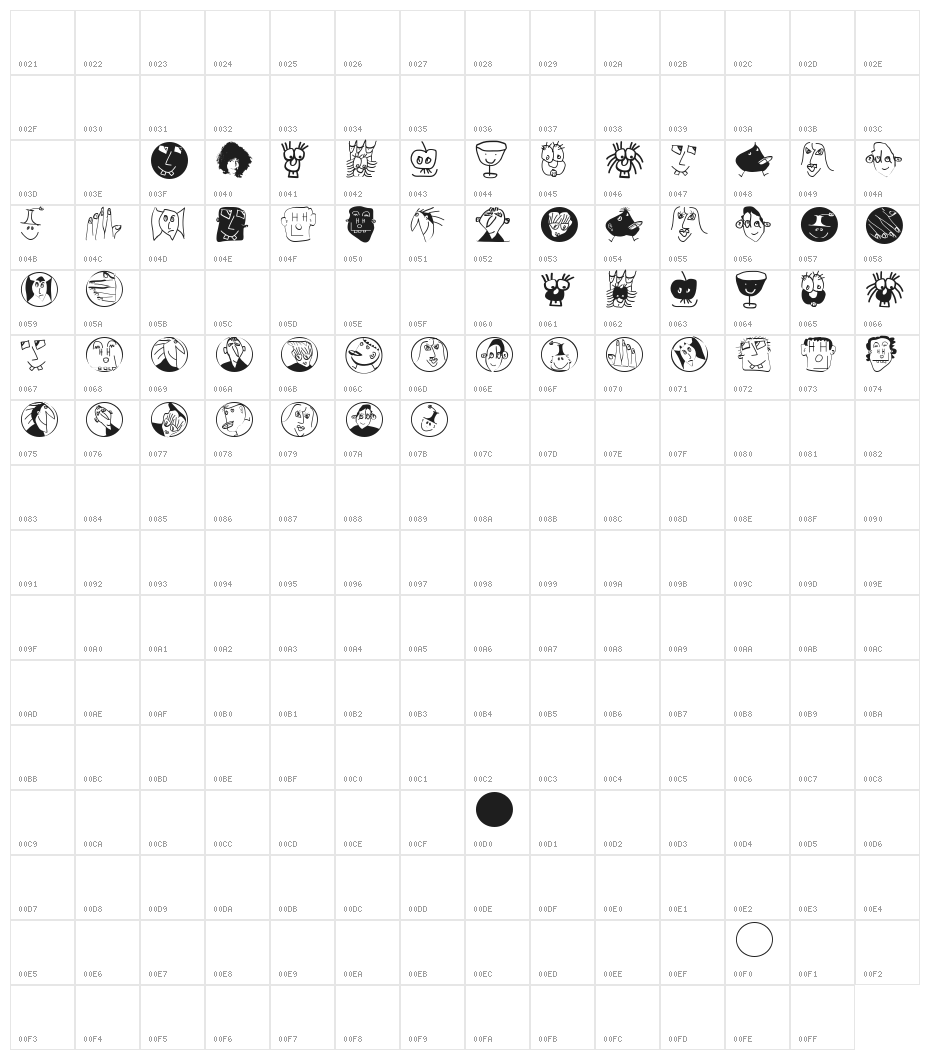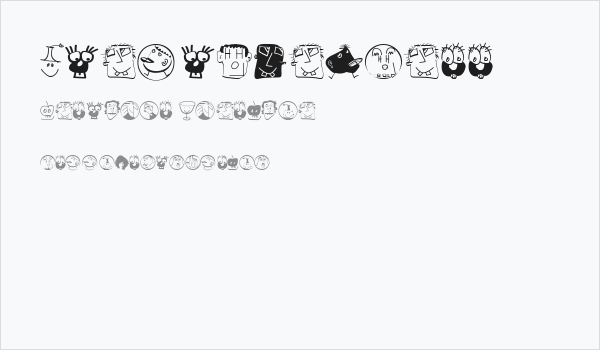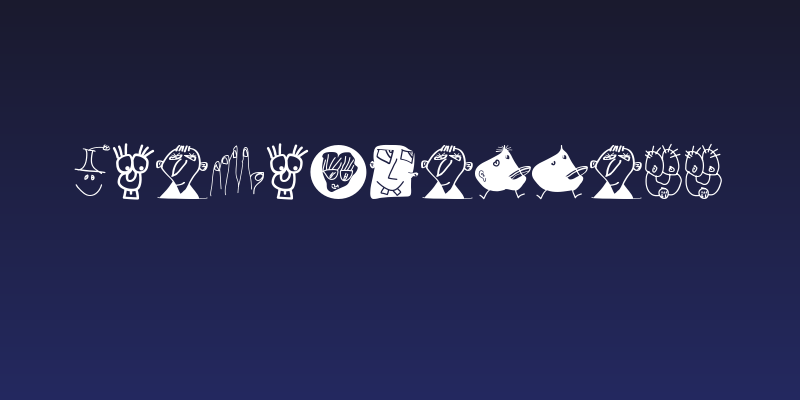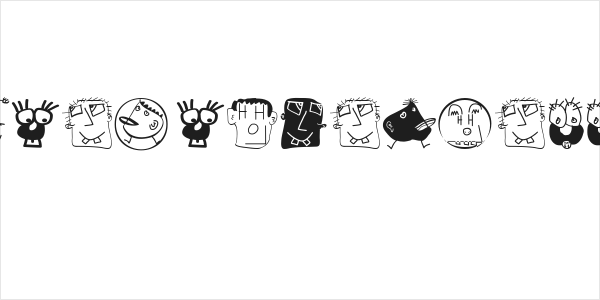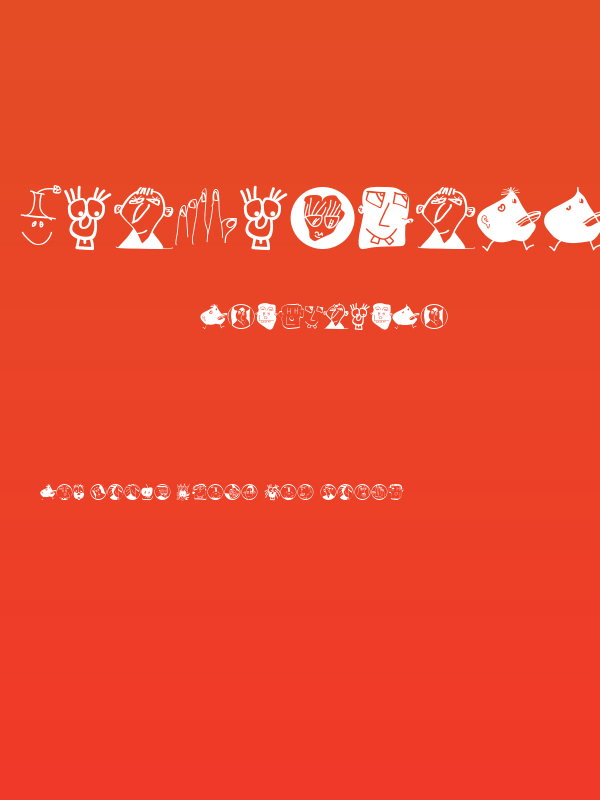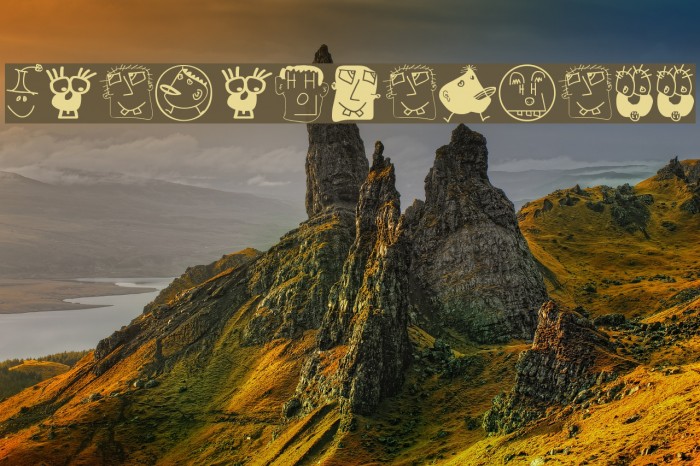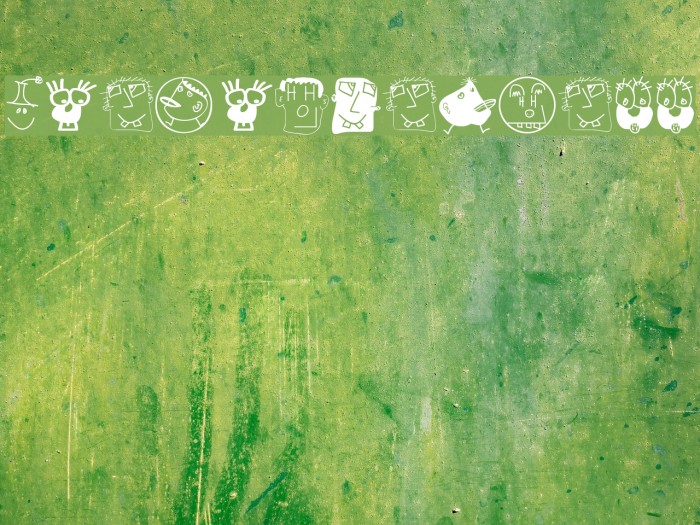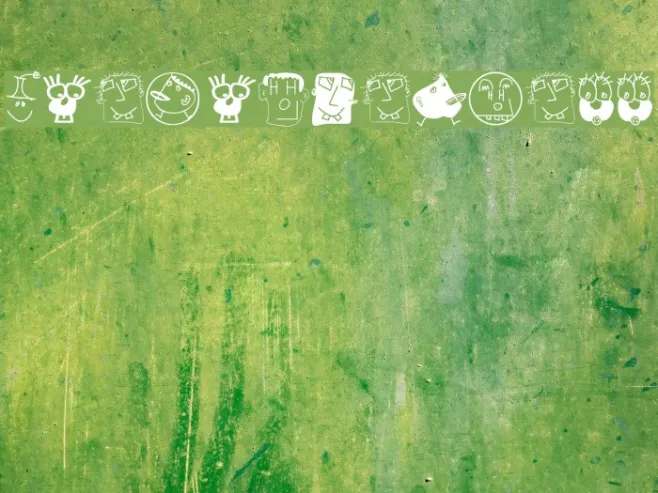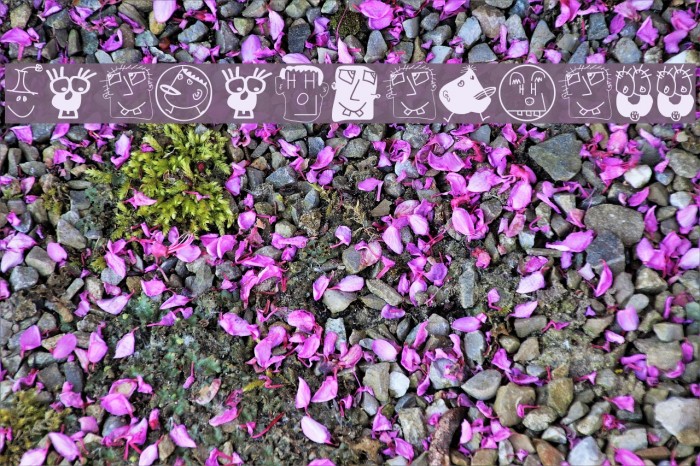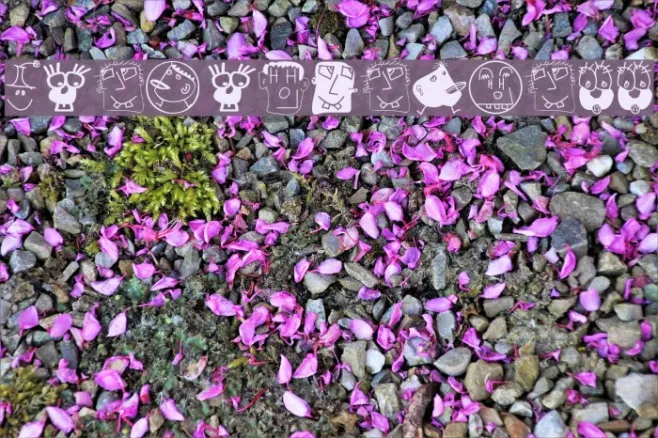
KarlasNrThree Font
KarlasNrThree Description
This is a highly decorative and playful font, characterized by its unique and whimsical illustrations for each character. Each letter and number is represented by a distinct, cartoon-like face or object, making it more of an artistic expression than a traditional typeface. The characters are bold and eye-catching, with a variety of expressions and styles that add a sense of fun and creativity. This font is not suitable for body text but excels in creating a visual impact in designs that require a quirky and artistic touch.
| Proposed Projects | Ideal for children's books, playful branding, creative posters, and artistic projects that require a unique and engaging visual element. |